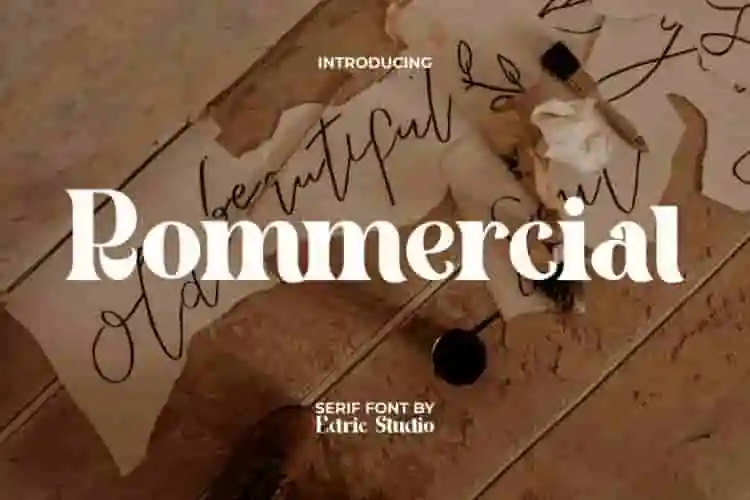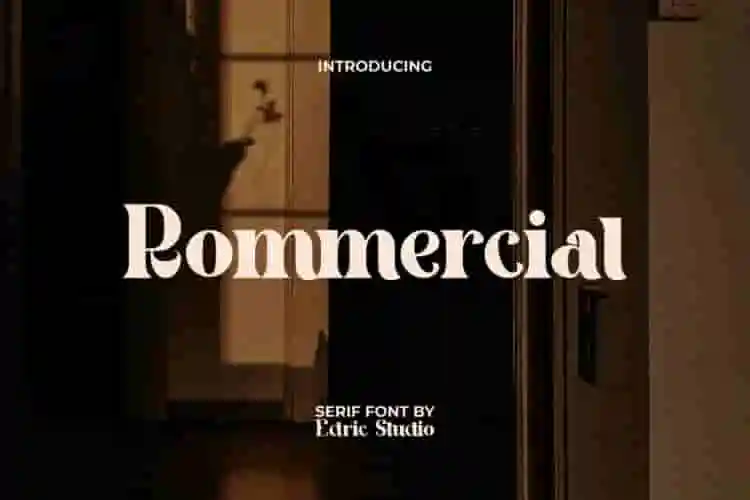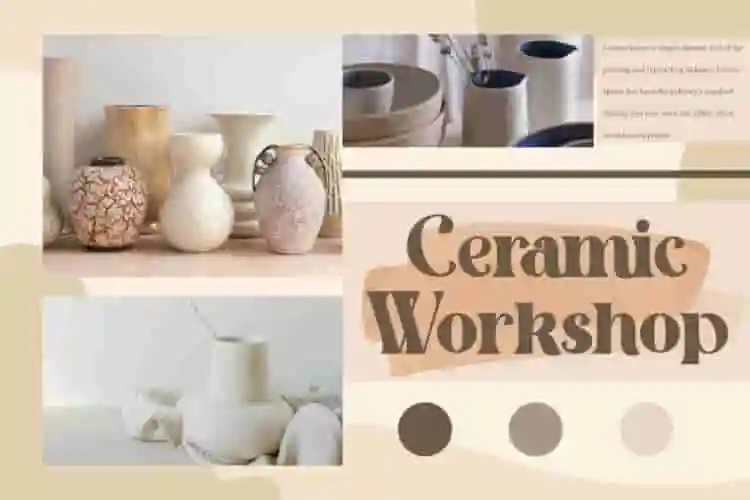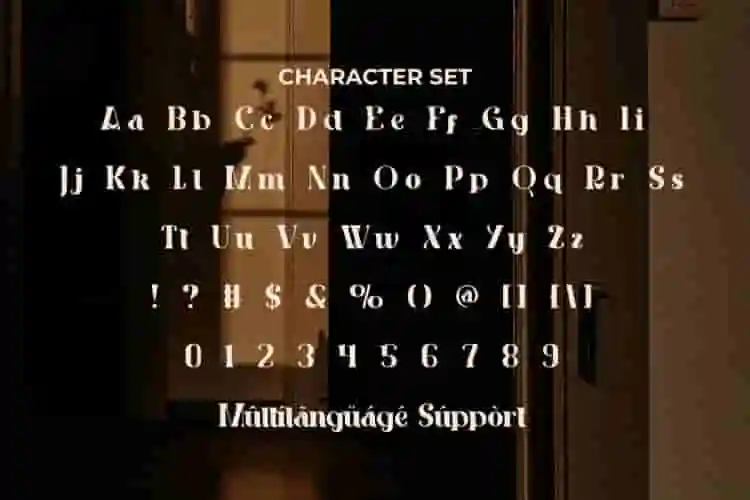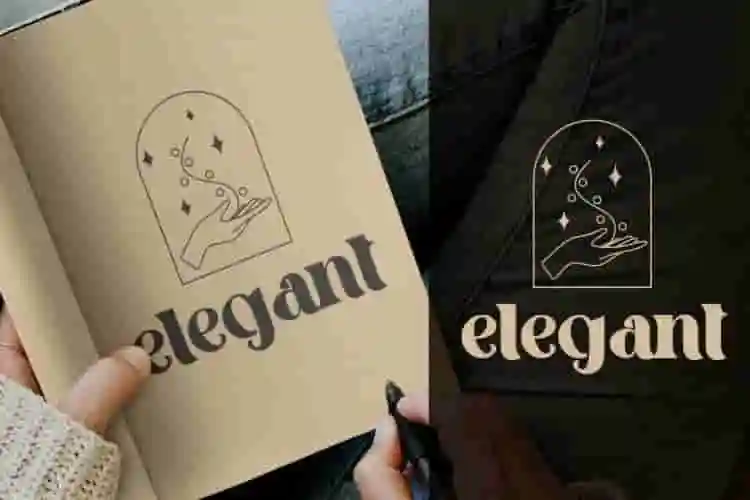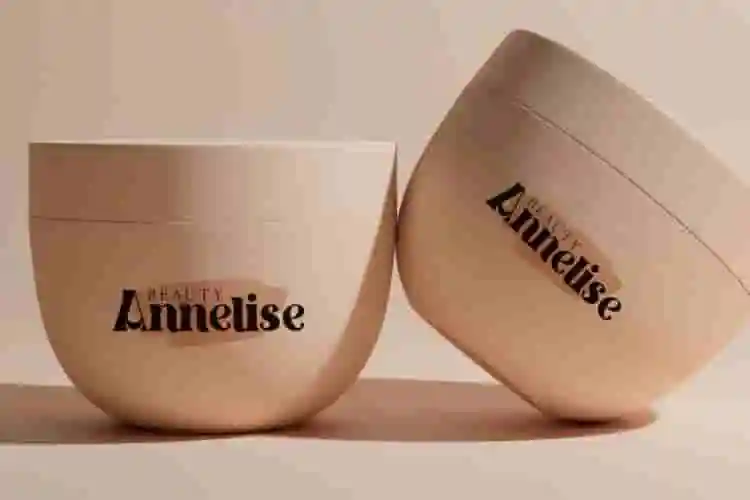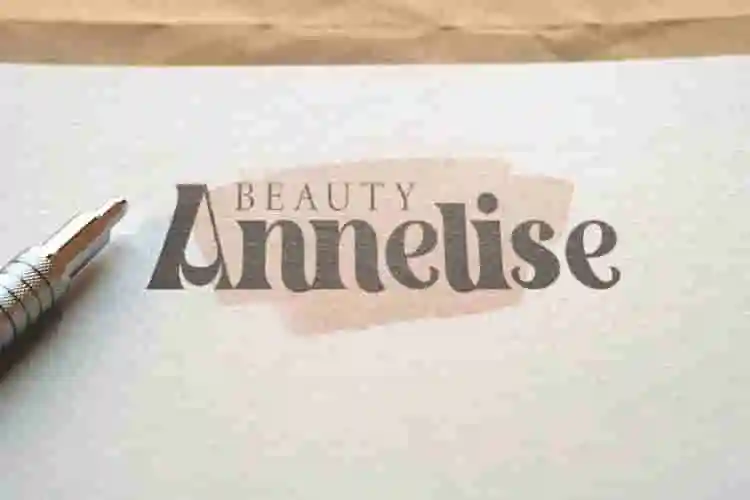
Rommercial Font is a stunning classic serif display font with a charming medieval style. This font will give authentic feel to your design, such as apps, billboard, blogs, brochure, cover, flyer, header, logos, packaging design, poster, product label, quotes, screen print, signage, stationery, sticker, title, website, and much more.
Introducing Rommercial Sans Serif Font – a sleek, modern, and professional typeface designed to give your projects a polished and contemporary look. With its clean lines, balanced proportions, and versatile style, Rommercial is perfect for businesses, creatives, and brands that want to communicate clarity and confidence. From corporate branding and presentations to websites, logos, and advertising campaigns, this font ensures your message is delivered with impact.
Rommercial Sans Serif Font combines modern minimalism with timeless elegance, making it ideal for editorial layouts, product packaging, digital content, and marketing materials. Its strong readability and stylish letterforms allow it to shine in both large headlines and smaller body text. Whether you’re designing for technology, lifestyle, fashion, or business industries, Rommercial adapts effortlessly to any project.
Rommercial Sans Serif Font comes with a full set of Uppercase and Lowercase letters, Number, Punctuation and Symbol. Fonts with an elegant appearance are able to make anything feel classy. Can be adapted to suit the needs of any industry, such as ads, author, content creator, cosmetic, fashion, furniture, gifts and merchandise, graphic design, handicraft, pastries, pottery, printing, publishing, real estate, skincare, web designer, writer, etc.